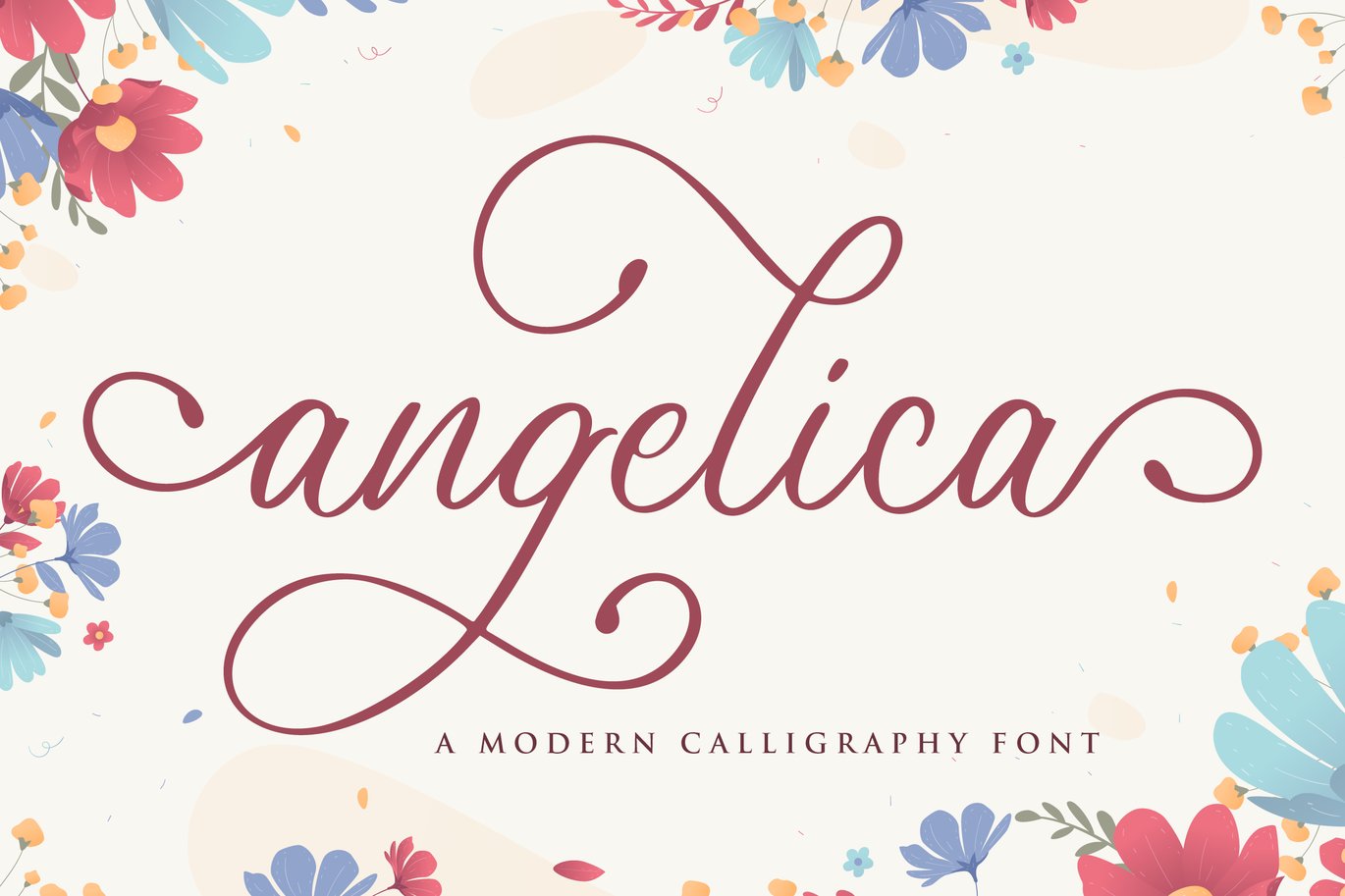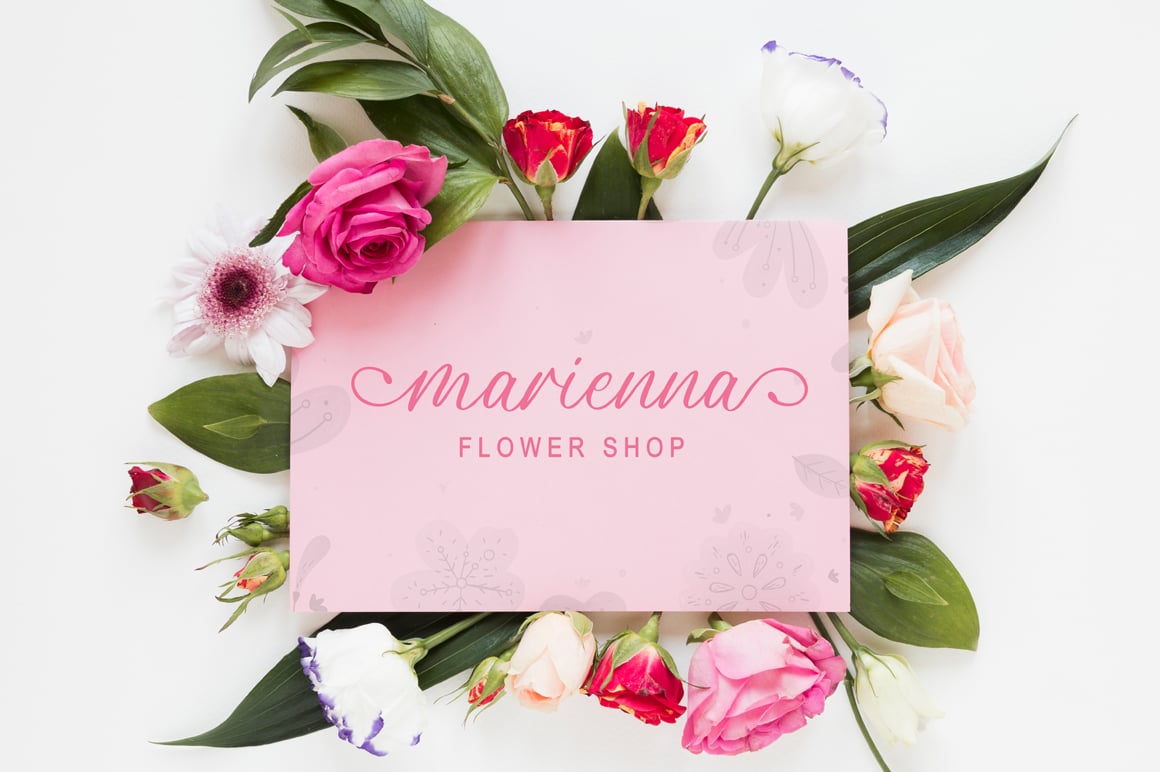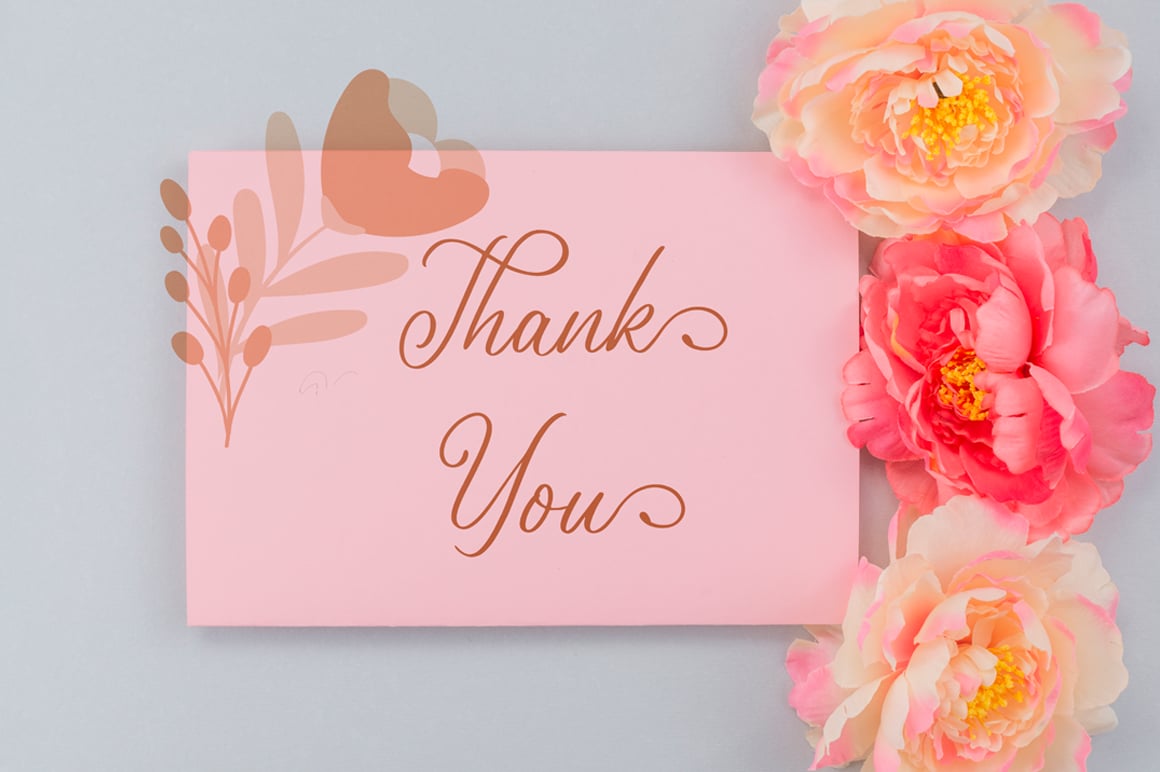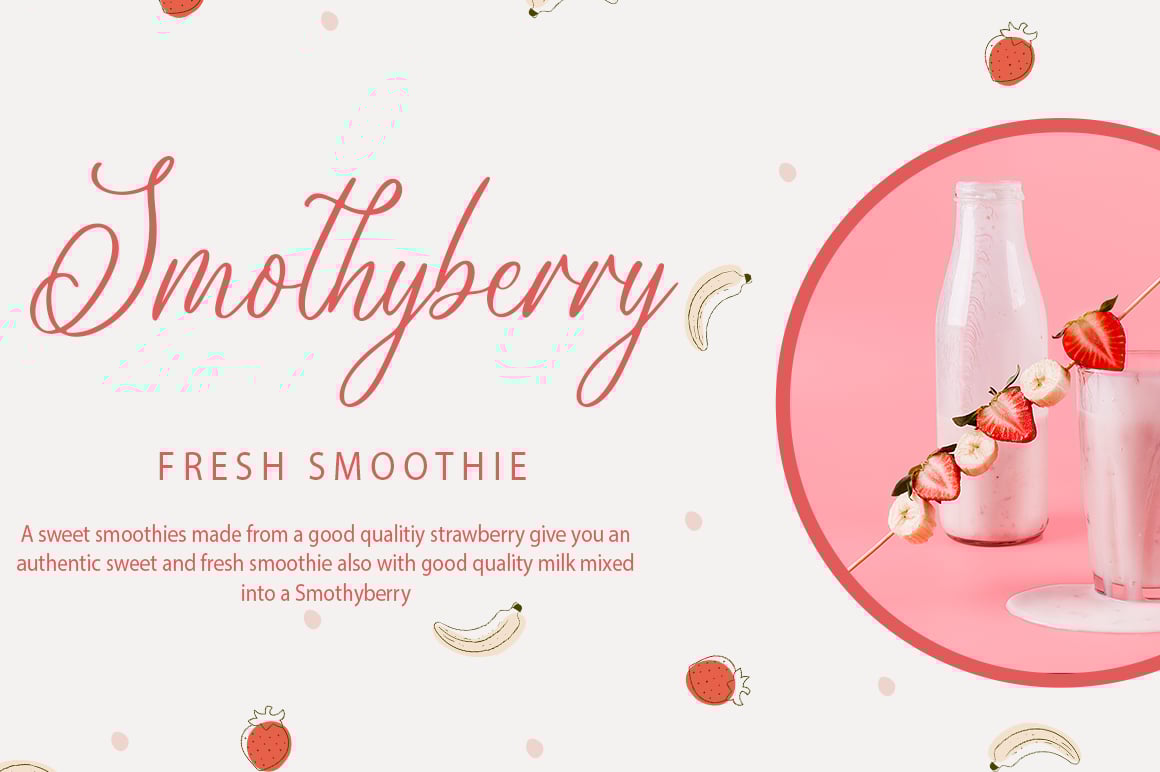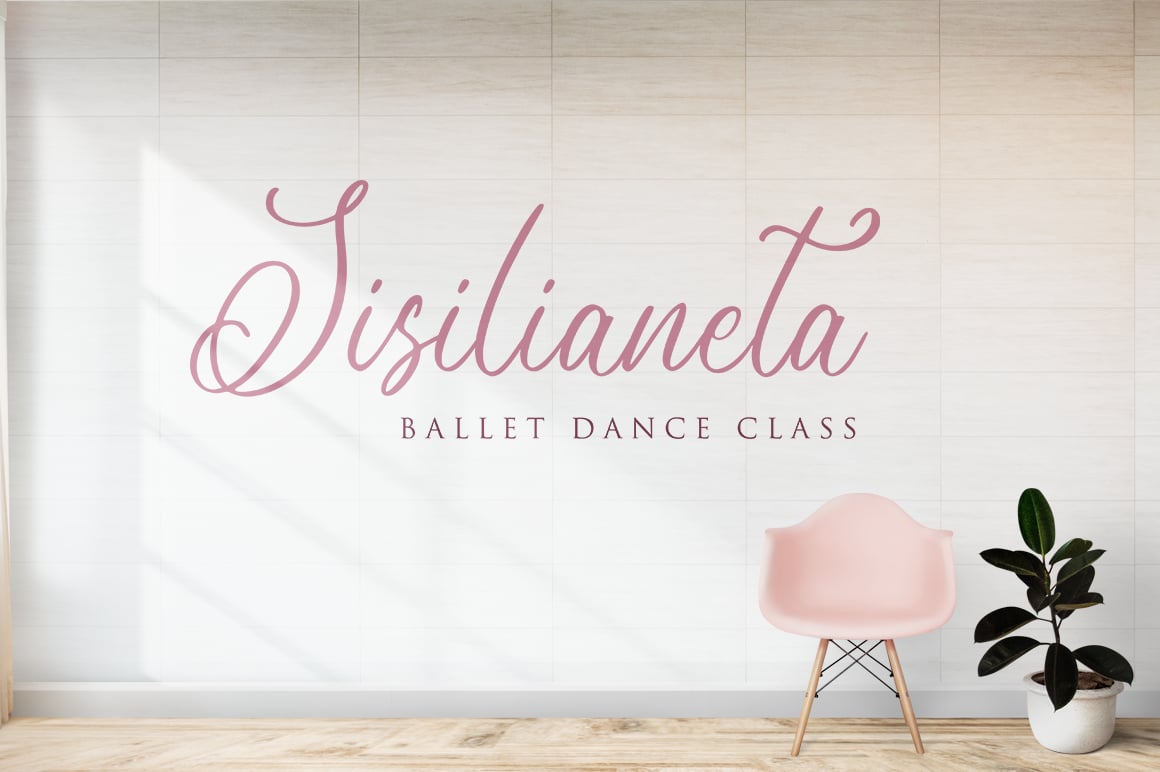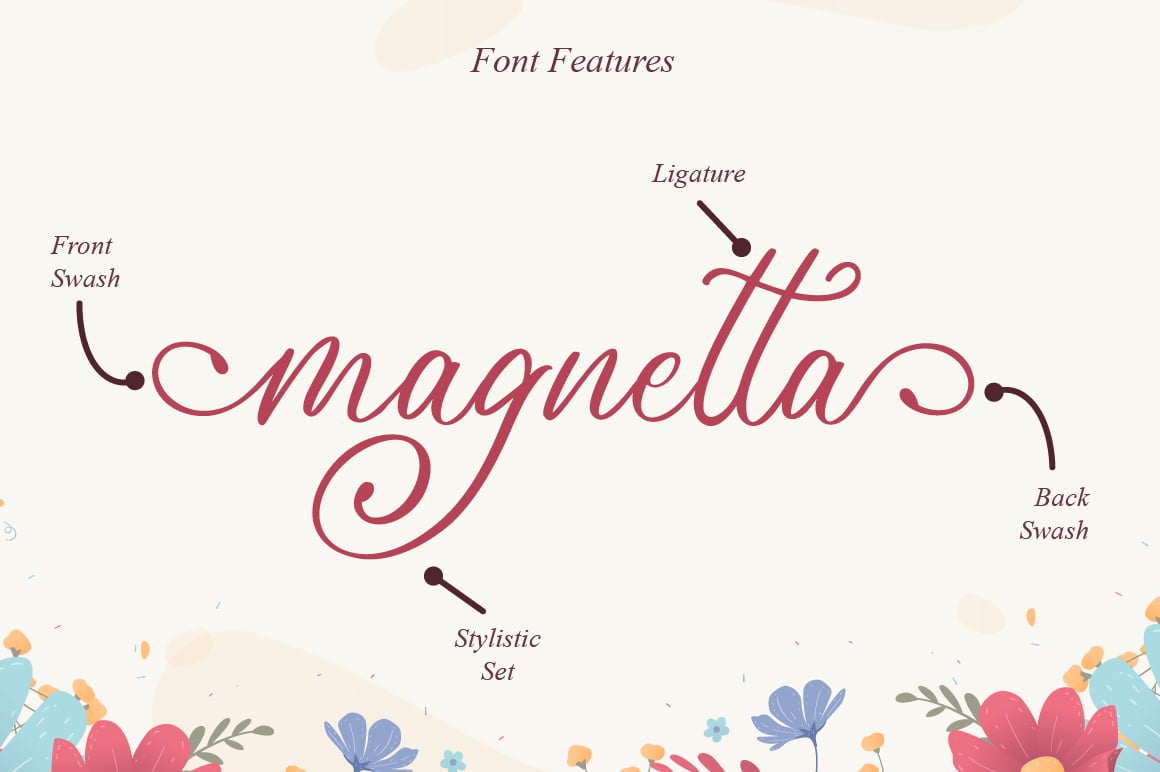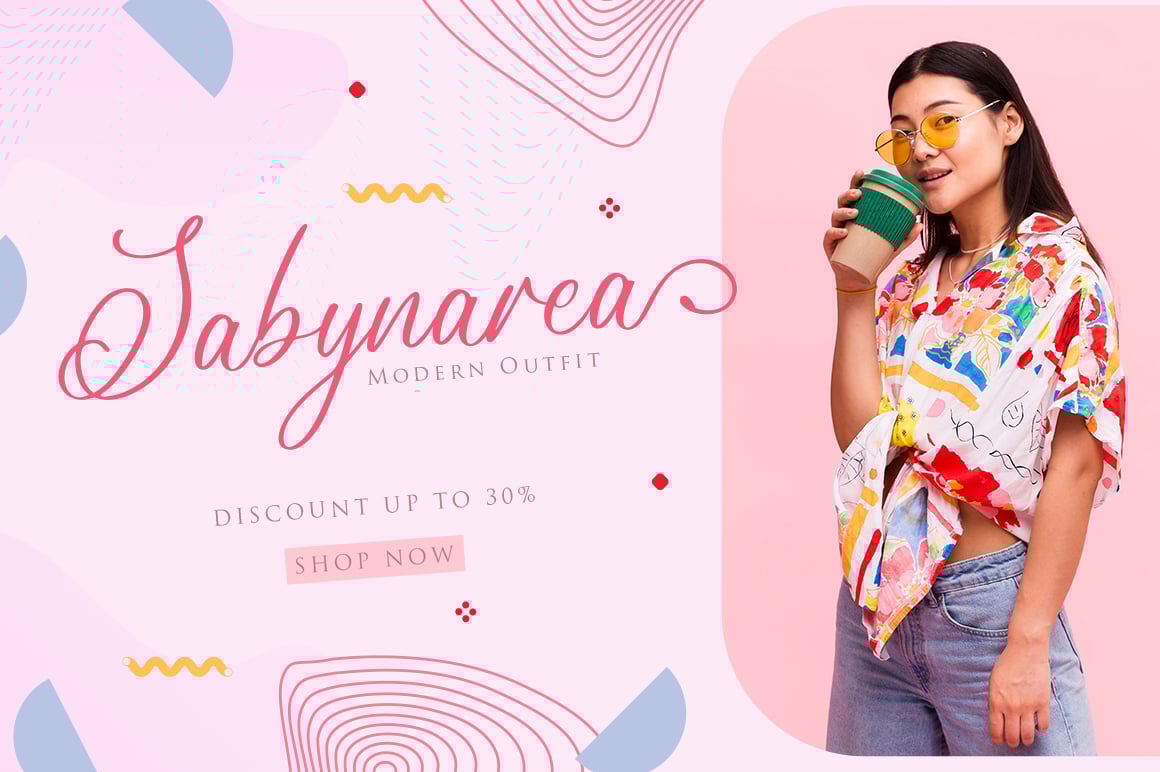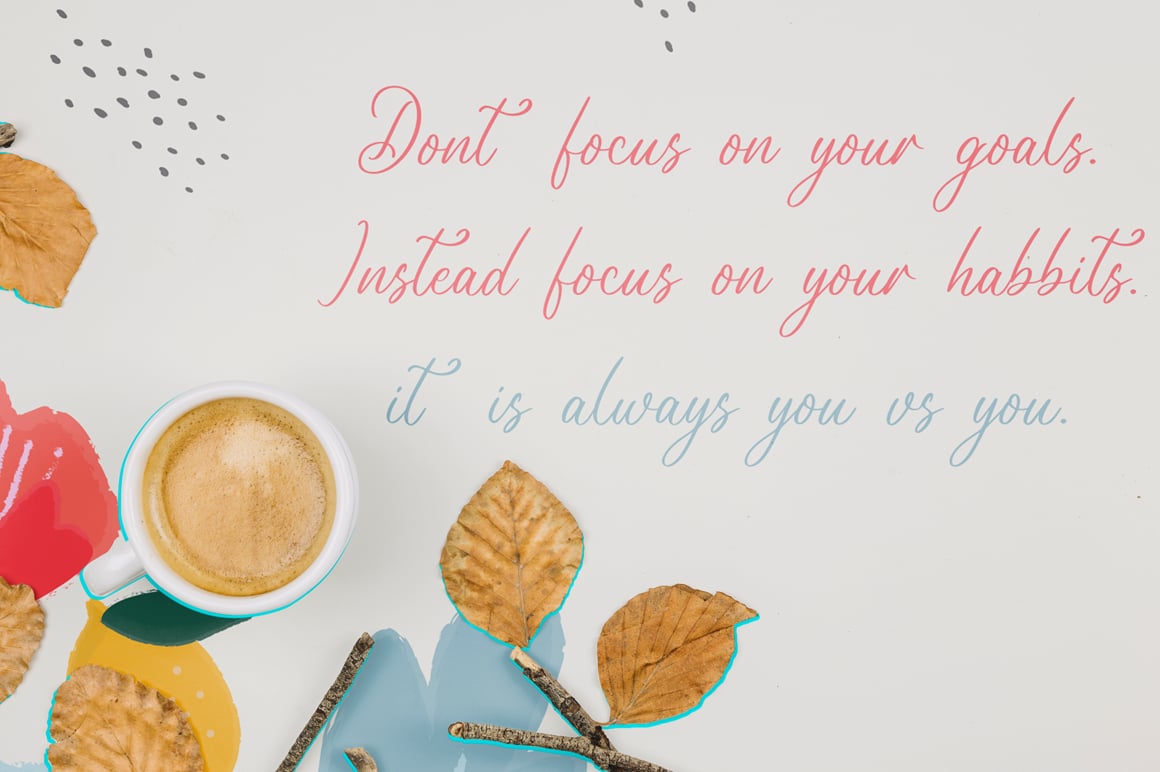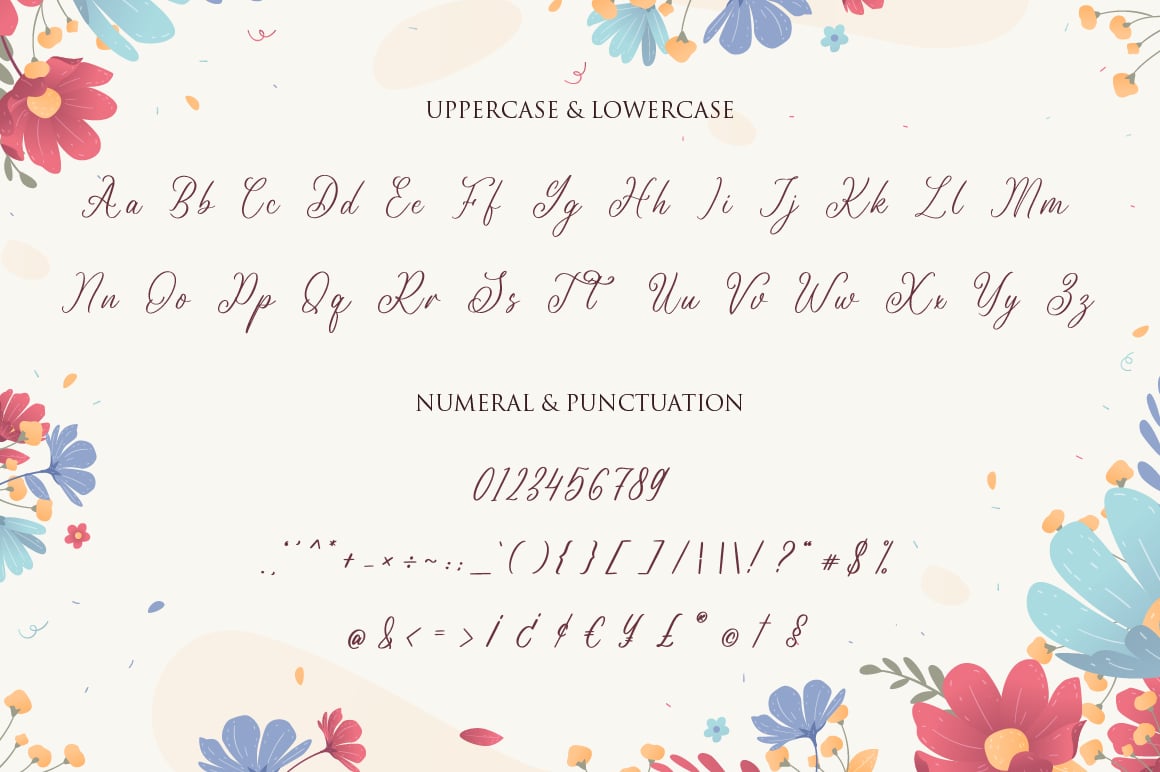
angelica – Wedding Font
Angelica is a delicate, elegant and flowing handwritten font. It has beautiful and well balanced characters and as a result, it matches a wide pool of designs.
- Modern Handwritten Font
- Beautiful Swash (Ending tail)
- Beautiful Titling (Beginning tail)
- Special Ligatures